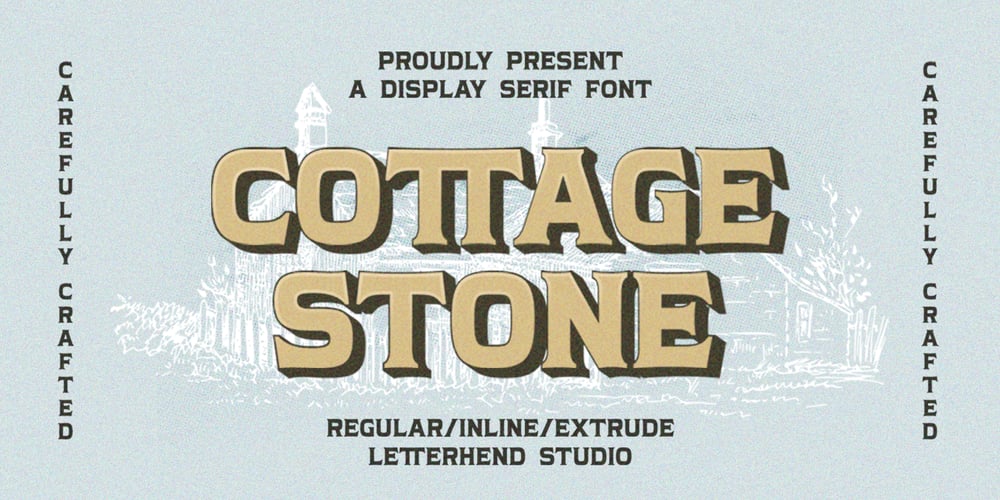
Cottage Stone
Cottage Stone font
Cottage Stone Font Family was designed by Hendry Juanda and published by Letterhend. Cottage Stone contains 3 styles and family package options. Cottage Stone is a bold serif font with classic and vintage looks. This type of font perfectly made which is need a standout font, and the other various formal forms such as invitations, labels, logos, magazines, books, greeting / wedding cards, packaging, fashion, make up, stationery, novels, labels or any type of advertising purpose.Features : 3 Styles : Regular, Inline & Extrude Lowercase & upercase Numbers and punctuation multilingual ligatures PUA encoded We highly recommend using a program that supports OpenType features and Glyphs panels like many of Adobe apps and Corel Draw, so you can see and access all Glyph variations.